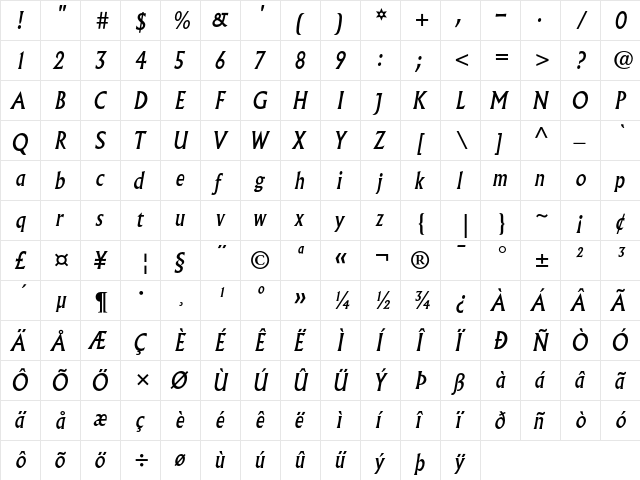
Albertus MT Italic Font Preview
Albertus MT Italic
Design Context for Albertus MT Typeface
Albertus MT is a composed and adaptable typeface that performs quietly and consistently across a wide range of design contexts. Its italic angle brings a sense of urgency and motion to the letterforms.
Pro Tip: Use Albertus MT for emphasis, pull quotes, and subheadings where its slanted energy can add rhythm to the layout.